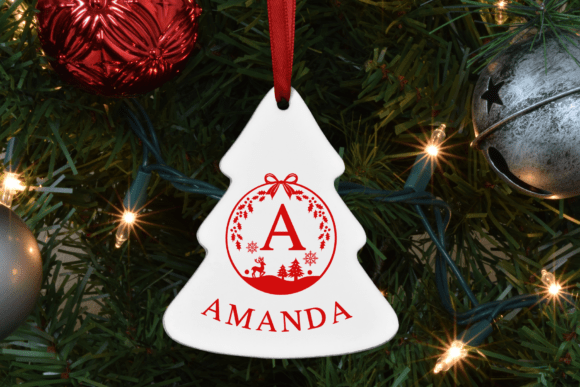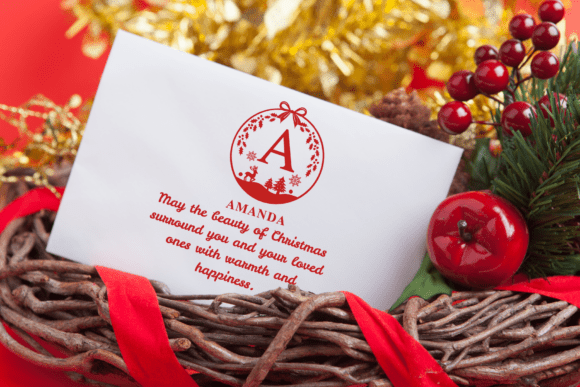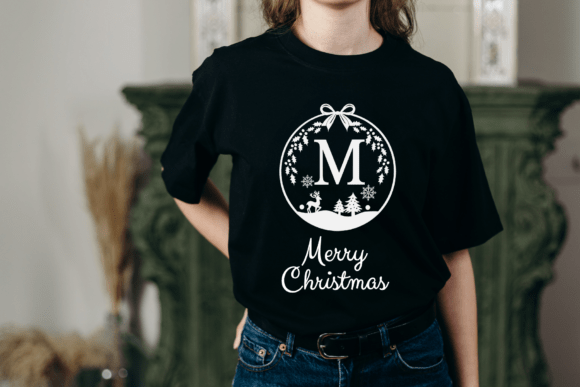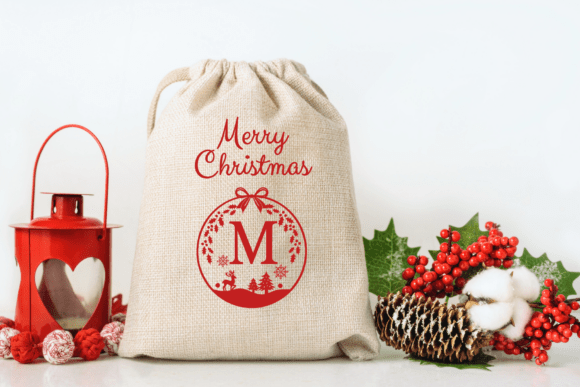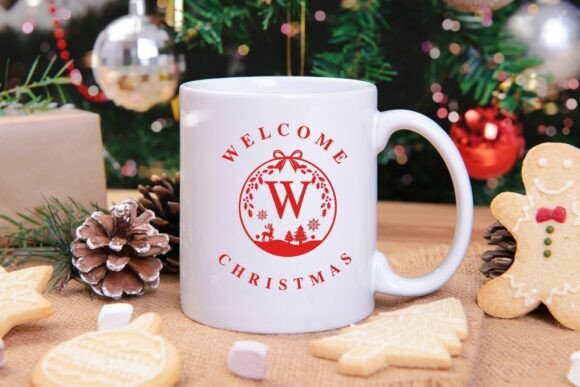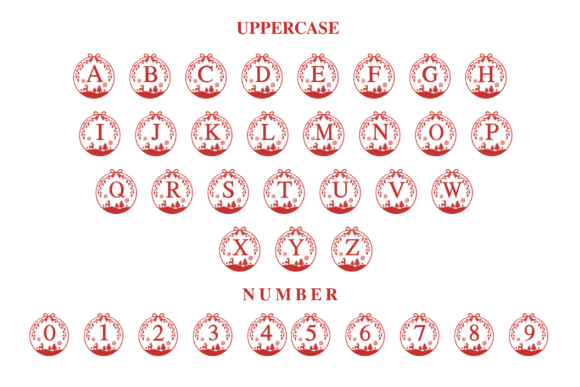
Christmas Festive Monogram Font: Add Holiday Cheer to Your Designs
The holiday season is upon us, and what better way to get into the festive spirit than with a special Christmas-themed font? Introducing the Christmas Festive Monogram Font, a joyful and decorative typeface designed to bring holiday cheer to your designs. This delightful font features elegant monograms, snowflakes, reindeer, and Christmas tree elements, making it perfect for a wide range of festive projects.
What is Christmas Festive Monogram Font?
Christmas Festive Monogram Font is a unique and decorative font that combines the elegance of monograms with the whimsy of holiday elements. The font features a range of characters, including uppercase and lowercase letters, numbers, and special characters, all designed with a festive twist. The monograms are intricately designed with snowflakes, holly, and other holiday motifs, making each letter a work of art.
Key Features of Christmas Festive Monogram Font
• Elegant Monograms: The font features a range of elegant monograms, each designed with intricate details and holiday motifs.
• Snowflakes and Winter Elements: The font includes a range of snowflakes, reindeer, and Christmas tree elements, perfect for adding a touch of winter wonderland to your designs.
• Holiday-themed Characters: The font features a range of holiday-themed characters, including uppercase and lowercase letters, numbers, and special characters.
• Perfect for Festive Projects: The font is perfect for a wide range of festive projects, including invitations, greeting cards, posters, branding, packaging, and seasonal crafts.
Uses for Christmas Festive Monogram Font
Christmas Festive Monogram Font is a versatile font that can be used for a wide range of festive projects. Here are some ideas to get you started:
• Festive Invitations: Use the font to create beautiful and festive invitations for holiday parties, weddings, and other celebrations.
• Greeting Cards: Create personalized and festive greeting cards for friends and family.
• Posters and Flyers: Use the font to create eye-catching posters and flyers for holiday events and promotions.
• Branding and Packaging: Add a touch of holiday cheer to your branding and packaging with this festive font.
• Seasonal Crafts: Use the font to create festive crafts, such as holiday gift tags, decorations, and other DIY projects.
Tips for Using Christmas Festive Monogram Font
Here are some tips for getting the most out of Christmas Festive Monogram Font:
• Experiment with Colors: The font looks great in a range of colors, from traditional red and green to metallic gold and silver.
• Mix and Match Characters: Don’t be afraid to mix and match characters to create unique and personalized designs.
• Use with Holiday Images: Use the font with holiday images, such as snowflakes, reindeer, and Christmas trees, to create festive and cohesive designs.
Christmas Festive Monogram Font is a joyful and decorative typeface that is perfect for adding holiday cheer to your designs. With its elegant monograms, snowflakes, reindeer, and Christmas tree elements, this font is sure to bring a touch of festive spirit to your projects. Whether you’re a designer, crafter, or DIY enthusiast, this font is a must-have for the holiday season.